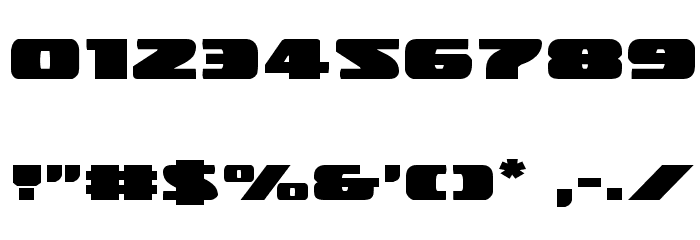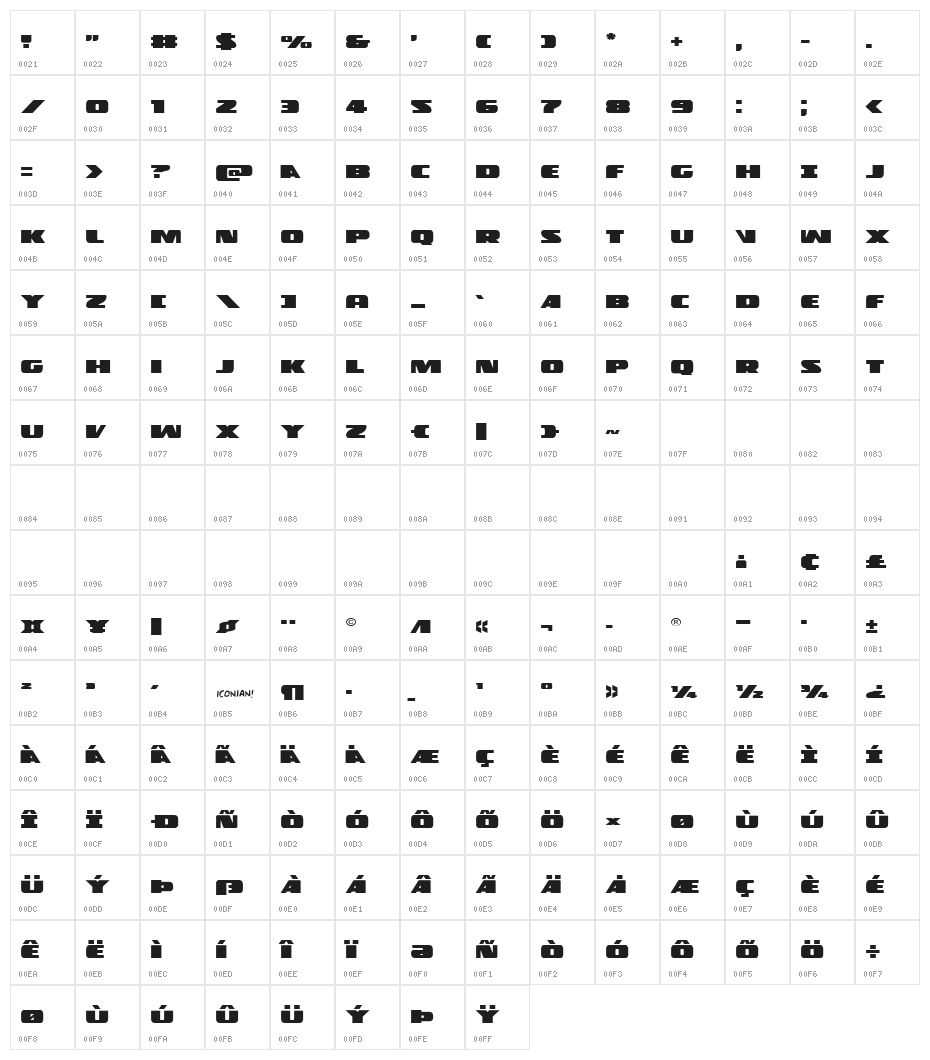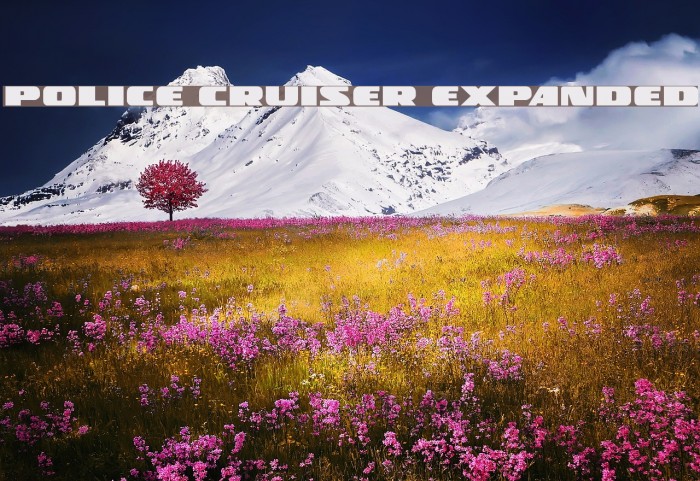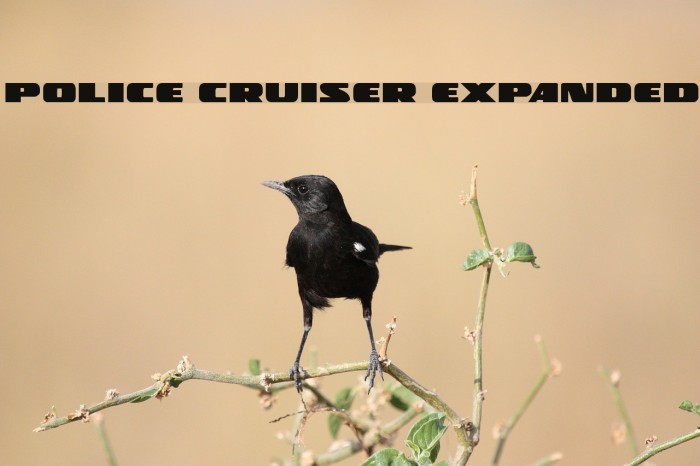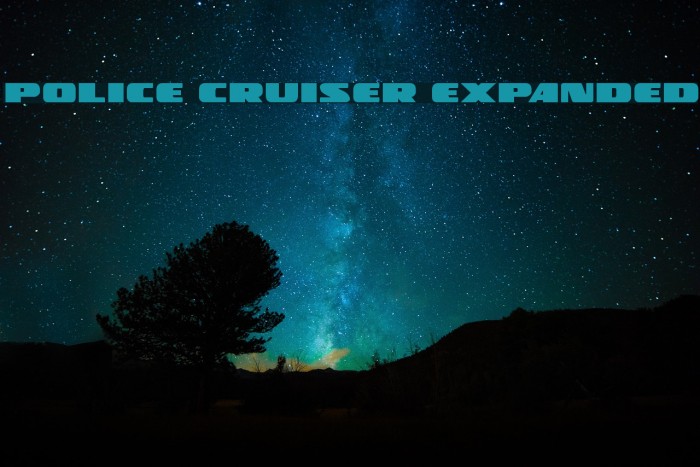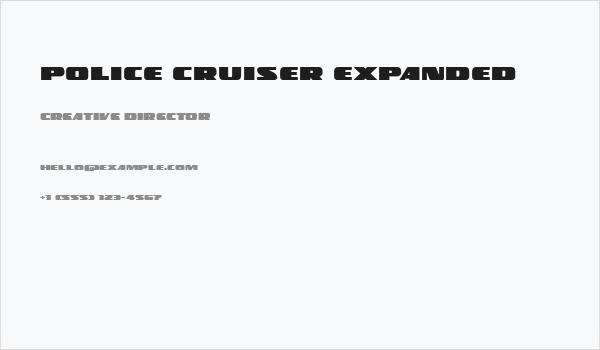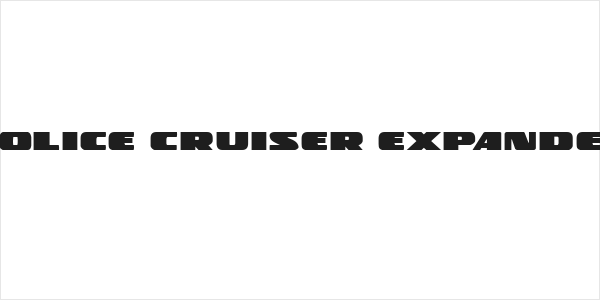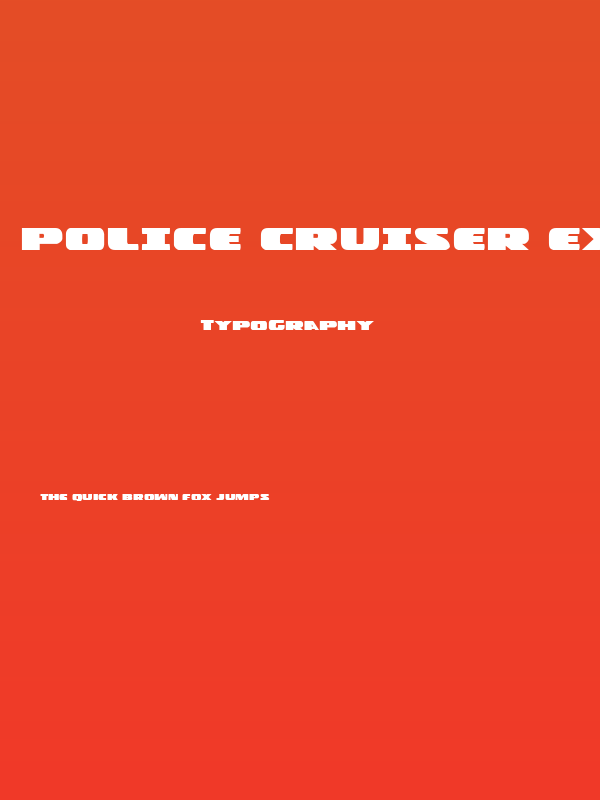
Police Cruiser Expanded Font
Police Cruiser Expanded Description
This font features a bold, impactful design with a distinctly modern and futuristic aesthetic. The characters are wide and blocky, with a strong presence that commands attention. The uppercase letters are uniform in height, while the numbers and special characters maintain the same bold style, ensuring consistency across all text. The font's geometric shapes and sharp angles give it a dynamic and energetic feel, making it ideal for projects that require a strong visual impact.
| Proposed Projects | Ideal for use in branding, advertising, posters, and any project requiring a strong, attention-grabbing typeface. |